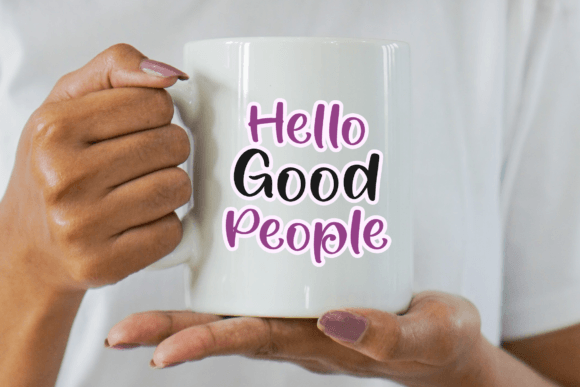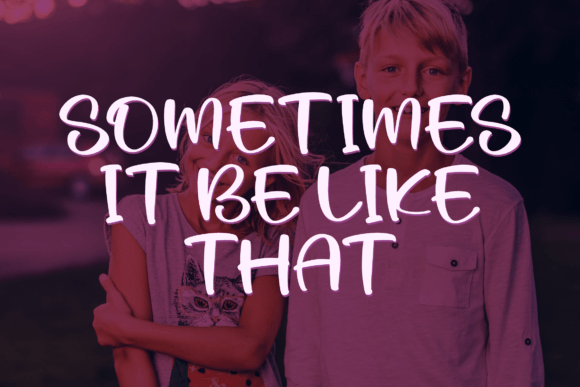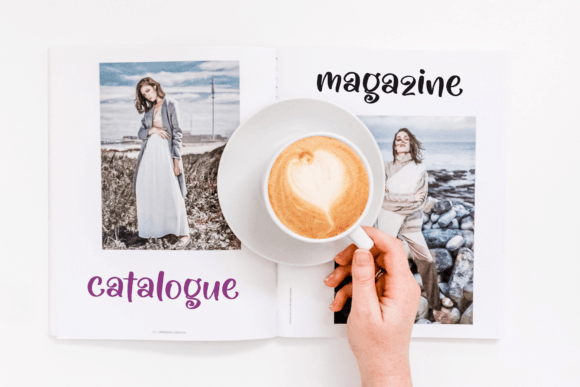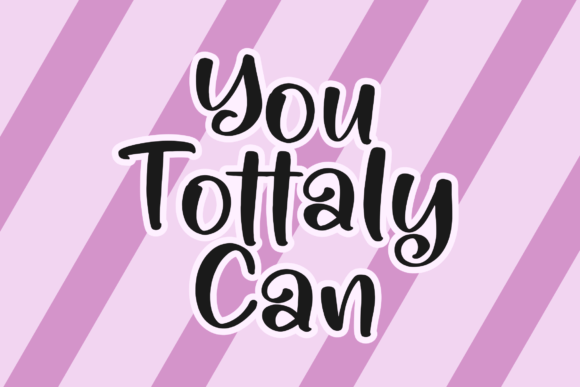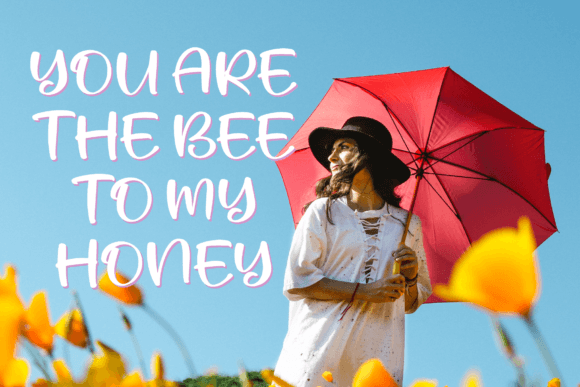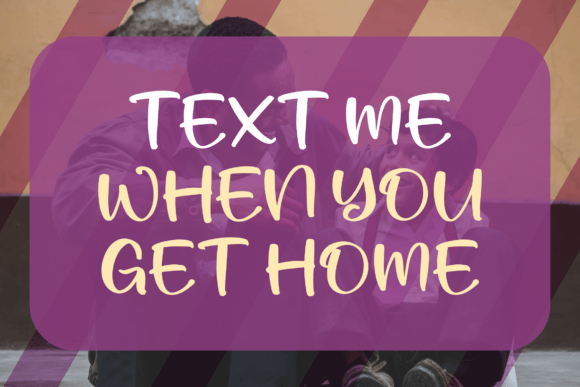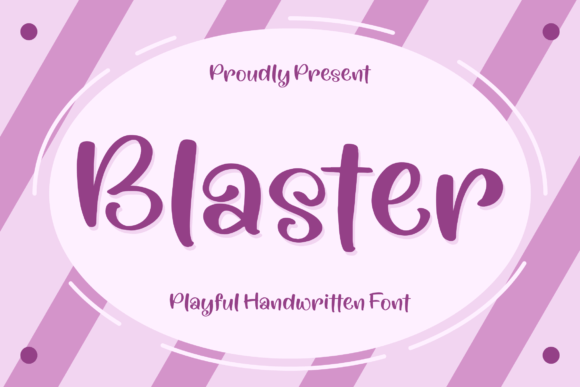
Introducing Blaster Font: The Ultimate Choice for Fun and Playful Designs
Are you tired of using the same old fonts for your designs? Do you want to add a touch of happiness and fun to your creations? Look no further than Blaster Font, a delightful handwritten font that’s perfect for bringing a smile to your audience’s faces. In this article, we’ll dive into the world of Blaster Font and explore its features, uses, and benefits for designers and crafters.
What is Blaster Font?
Blaster Font is a happy handwritten font designed to inject a dose of fun and playfulness into your designs. Its unique and quirky style makes it perfect for a wide range of applications, from branding and packaging to logotypes, headlines, and wedding invitations. With Blaster Font, you can add a personal touch to your designs and make them stand out from the crowd.
Key Features of Blaster Font
- Handwritten style: Blaster Font boasts a beautiful, handwritten style that’s both elegant and playful.
- Unique characters: Each character in Blaster Font has been carefully crafted to ensure that your designs look fresh and exciting.
- Multilingual support: Blaster Font supports multiple languages, making it a great choice for designers working on international projects.
- Easy to read: Despite its playful nature, Blaster Font is easy to read, even at smaller sizes.
Uses of Blaster Font
Blaster Font is an incredibly versatile font that can be used for a wide range of design projects, including:
- Branding: Create a memorable brand identity with Blaster Font’s unique and playful style.
- Packaging: Add a touch of fun to your product packaging and make it stand out on store shelves.
- Logotype: Create a custom logotype that reflects your brand’s personality and style.
- Headline: Use Blaster Font to create eye-catching headlines that grab attention.
- Wedding invitation: Add a touch of whimsy to your wedding invitations and make them truly special.
Benefits of Using Blaster Font
So why choose Blaster Font for your design projects? Here are just a few benefits:
- Adds a touch of personality: Blaster Font helps you add a personal touch to your designs and make them more relatable.
- Versatile: Blaster Font can be used for a wide range of design projects, from branding to packaging and more.
- High-quality: Blaster Font is a high-quality font that’s been carefully crafted to ensure that it looks great in any design.
Tips for Using Blaster Font
Here are a few tips for getting the most out of Blaster Font:
- Use it sparingly: While Blaster Font is a beautiful font, it’s best used sparingly to avoid overwhelming your design.
- Pair it with other fonts: Blaster Font pairs well with other fonts, so don’t be afraid to experiment with different combinations.
- Experiment with colors: Blaster Font looks great in a range of colors, so don’t be afraid to try out different color schemes.
In conclusion, Blaster Font is a fantastic choice for designers and crafters looking to add a touch of fun and playfulness to their designs. With its unique and quirky style, Blaster Font is perfect for a wide range of applications, from branding and packaging to logotypes, headlines, and wedding invitations. Whether you’re a seasoned designer or just starting out, Blaster Font is a great addition to your font library.